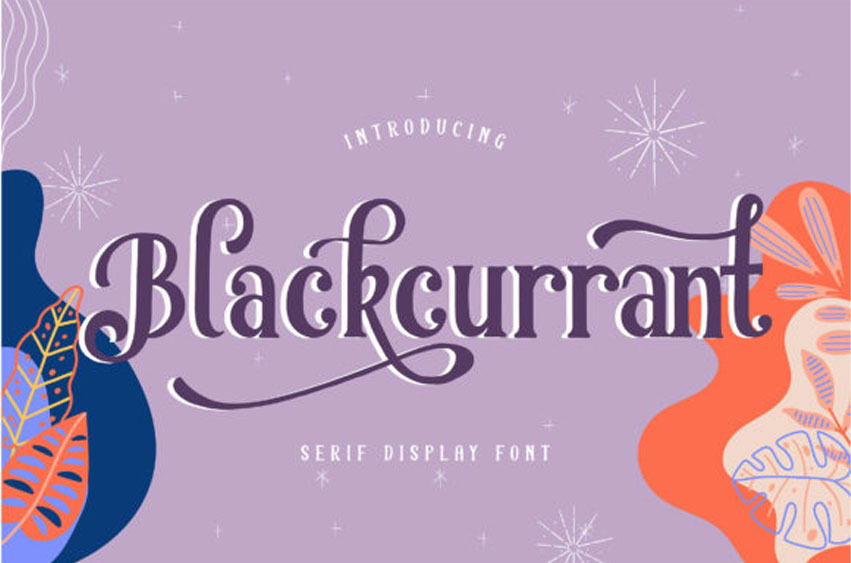
Blackcurrant Font
Blackcurrant Font is a stylish and bold serif font. It is PUA encoded which means you can access all of the glyphs and swashes with ease!